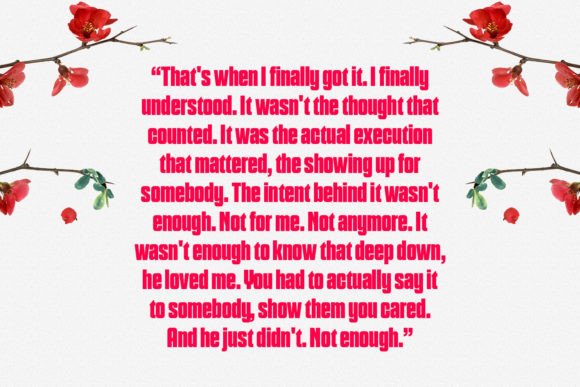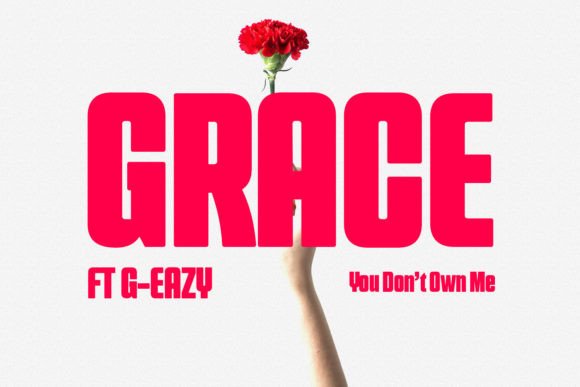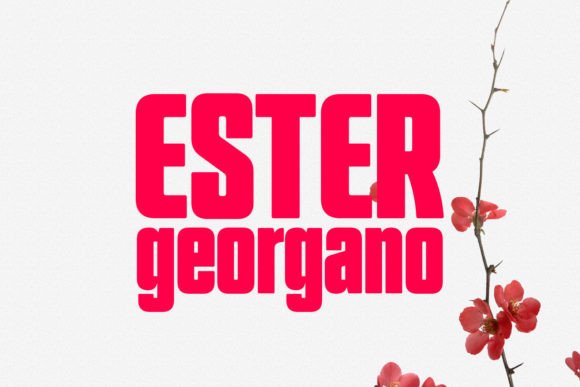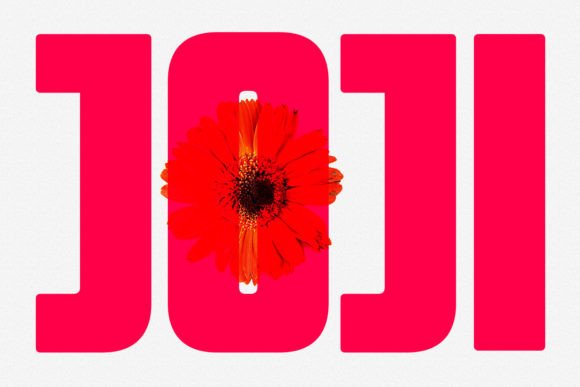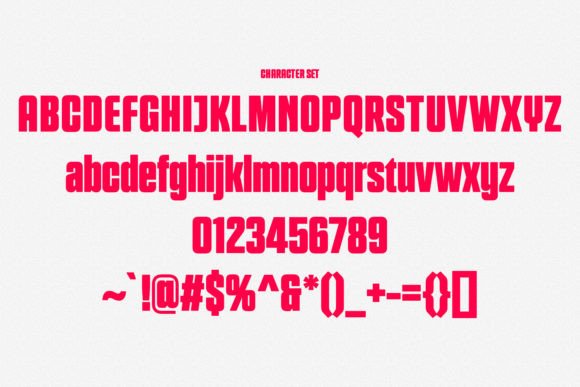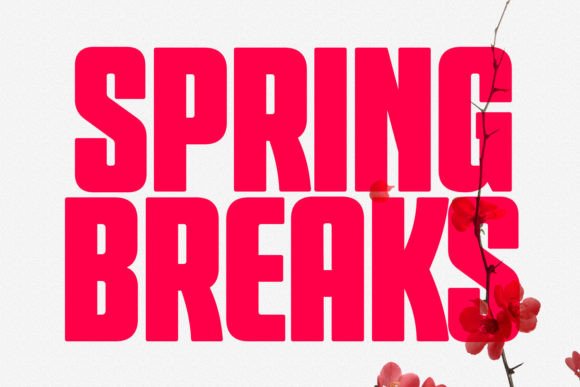
Introduction to Magtons Font
Have you ever stared at a blank canvas, waiting for the perfect font to bring your creative project to life? I know I have. And sometimes, all it takes is a single font to elevate your design from ordinary to extraordinary. For me, that font is Magtons Font – a timeless classic that exudes elegance and sophistication.
With its clean lines and minimalistic design, Magtons Font is the perfect addition to any project that requires a touch of vintage charm. Whether you’re working on a logo, branding, or a high-quality design resource, this font is sure to impress. And the best part? Magtons Font is available for free download, making it an accessible design resource for creatives of all levels.
As a designer, having access to high-quality fonts like Magtons Font can be a game-changer. With its transparent background and bold uppercase characters, this font is perfect for adding a professional touch to your work. So why settle for anything less when you can have the sophistication of Magtons Font at your fingertips?
Key Features of Magtons Font
- High-quality design resource ideal for creative projects and professional use.
- Features a transparent background, making it perfect for overlaying on images or videos.
- Designed with a modern and sleek aesthetic, making it suitable for various design applications.
- Can be used in a variety of creative projects, including graphic design, digital art, and web design.
Honest Review: Magtons Font
As a designer, I’m always on the lookout for high-quality design resources that can elevate my creative projects. Magtons Font has caught my attention with its sleek and modern aesthetic.
What works well: ✨ I love how Magtons Font offers a free download option, making it an excellent resource for designers on a budget. The transparent background feature is also a bonus, allowing for seamless integration into various design elements. The font’s clean lines and minimalist design make it perfect for branding, packaging, and digital interfaces.
What could improve: ⚠️ While Magtons Font is a solid design resource, I did notice that the font family is relatively small, with only a few styles to choose from. This might limit its versatility for more complex design projects. Additionally, the font’s legibility could be improved at smaller font sizes.
Overall impression: I’m impressed with Magtons Font’s potential as a design resource. Its high quality and free download option make it an excellent choice for designers working on creative projects. However, its limitations in terms of font family size and legibility at smaller sizes prevent it from being a go-to font for all projects.
Tips for Getting the Most Out of Magtons Font
To get the most out of Magtons Font, consider the following tips:
- Use the font with a transparent background to create a seamless design.
- Experiment with different font sizes and styles to achieve the desired effect.
- Combine Magtons Font with other design resources to create a unique and creative project.